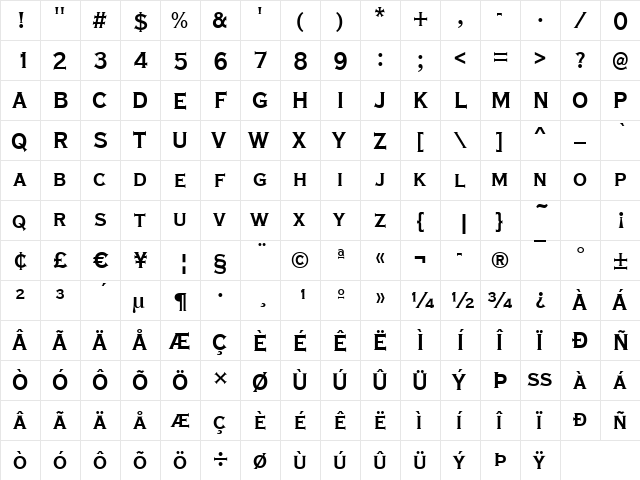
Copperplate-Cd Bold Font Preview
Copperplate-Cd Bold
Design Context for Copperplate-Cd Typeface
Copperplate-Cd is a composed and adaptable typeface that performs quietly and consistently across a wide range of design contexts. The heavy weight commands attention and anchors typographic hierarchies.
Pro Tip: Use Copperplate-Cd in both headline and body roles to test its range before committing to a single application.